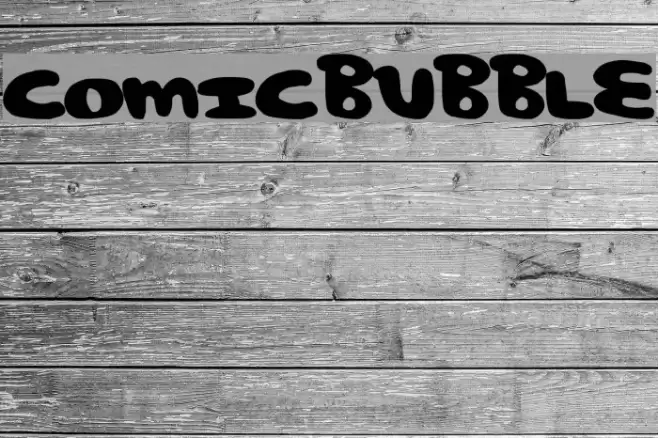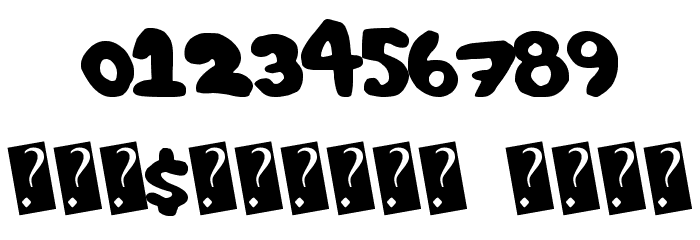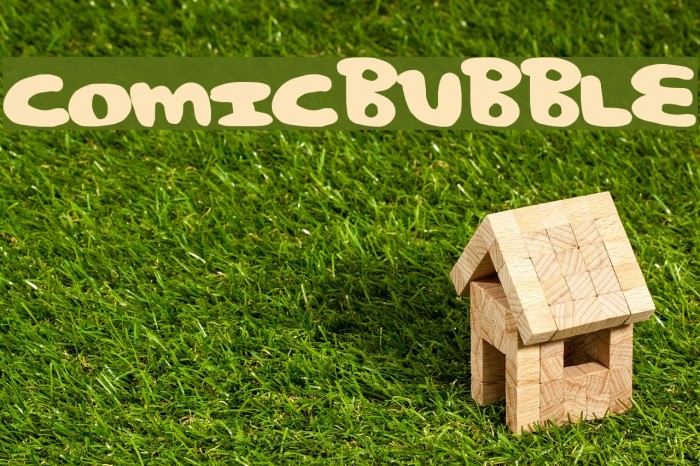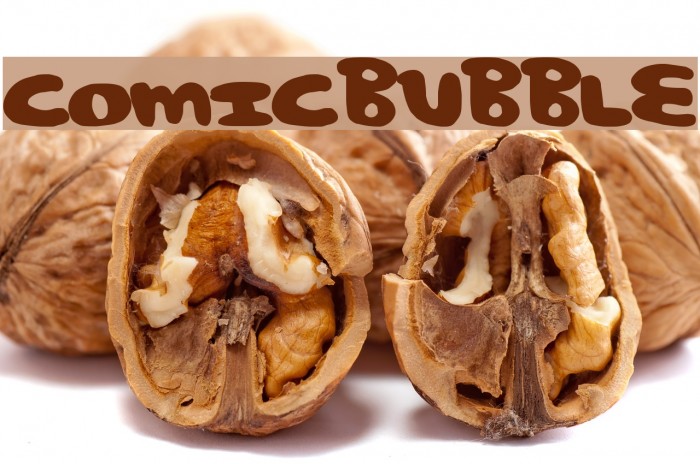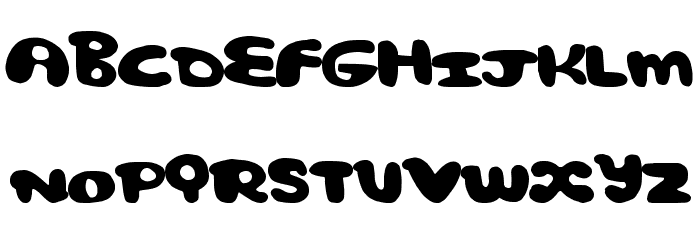
ComicBubble Font
ComicBubble Description
This playful and bold font features rounded, bubble-like characters that convey a sense of fun and whimsy. The letters are thick and have a cartoonish appearance, making them ideal for lighthearted and informal designs. The uppercase and lowercase letters maintain a consistent style, with exaggerated curves and a slightly uneven baseline that adds to the casual feel. The numbers and special characters follow the same design principles, ensuring a cohesive look across all text elements. The font's unique style makes it stand out, perfect for projects that require a touch of humor or creativity.
A playful, bold font with rounded, bubble-like characters ideal for fun designs from Cartoon fonts.
- Proposed Projects: Great for comic books, children's books, playful branding, and party invitations.
- Overall Style: Playful, Cartoonish